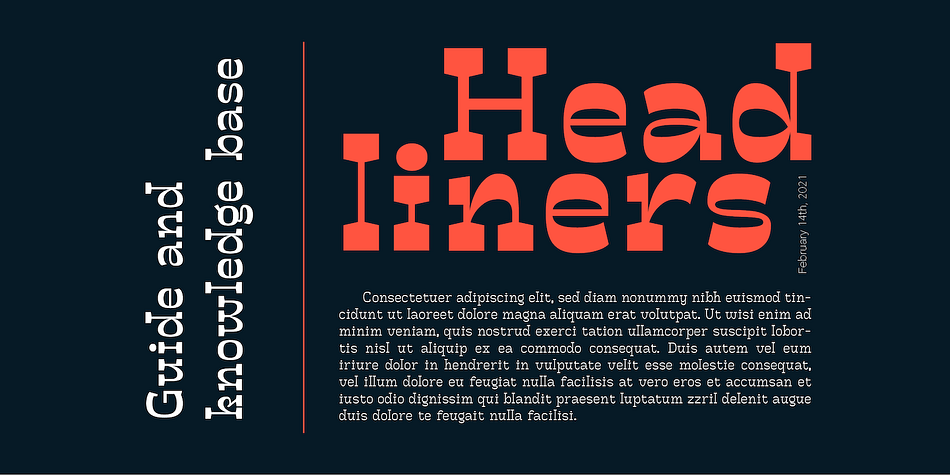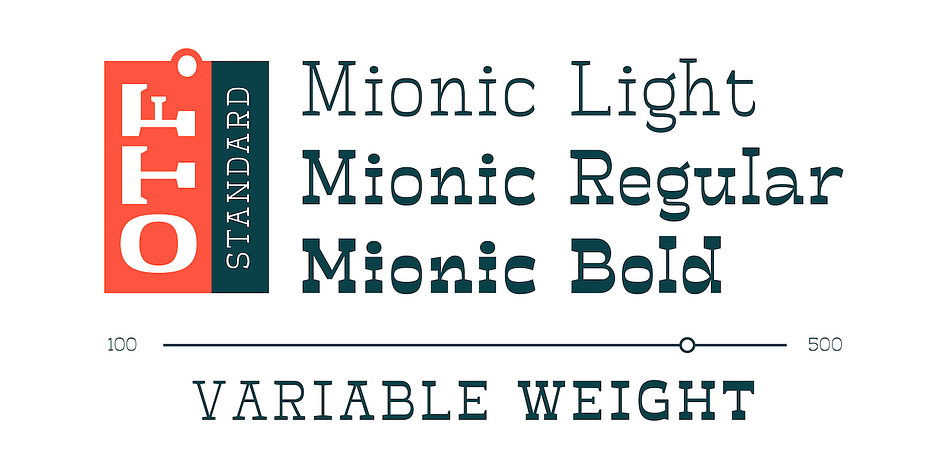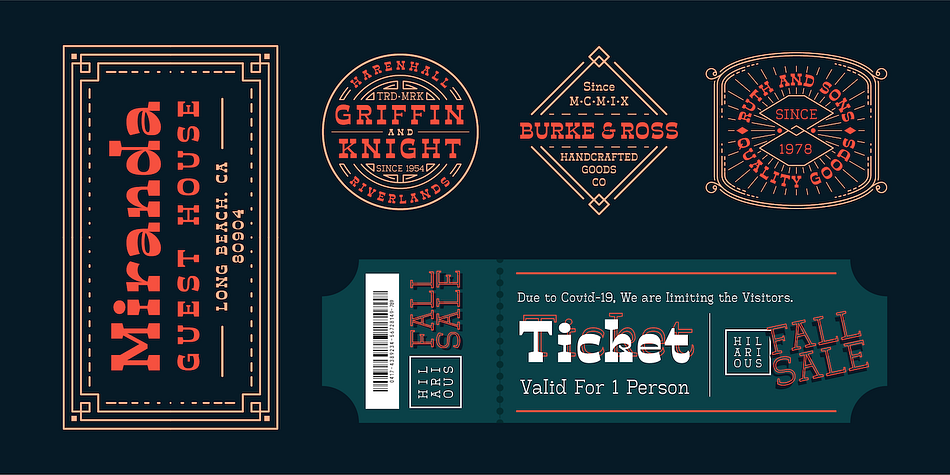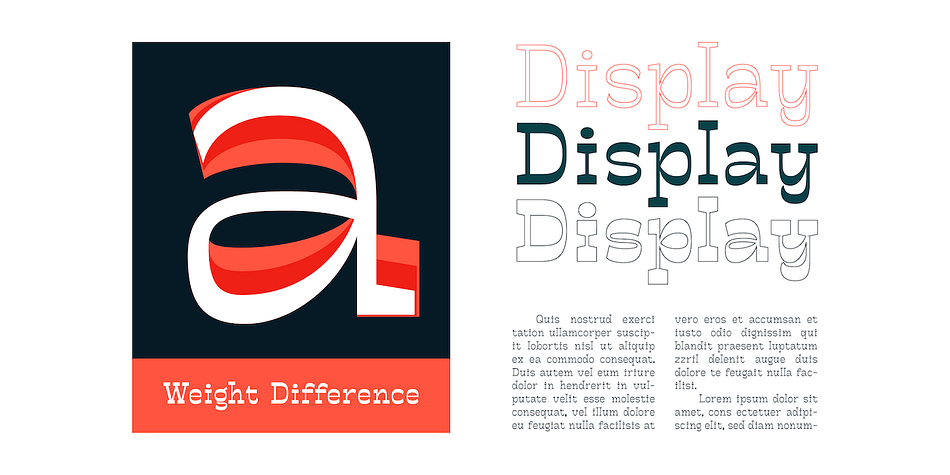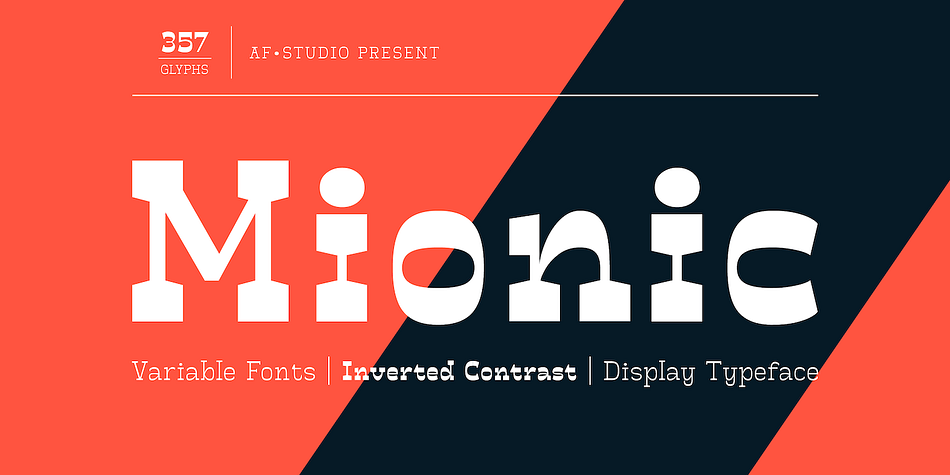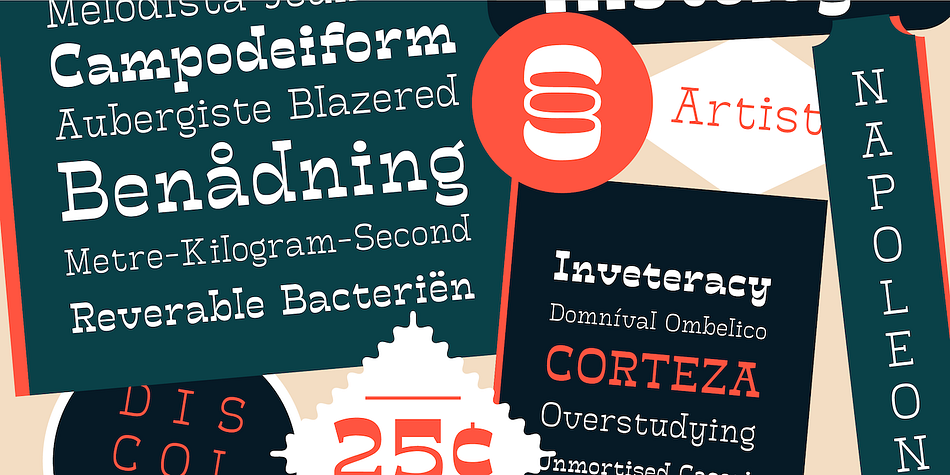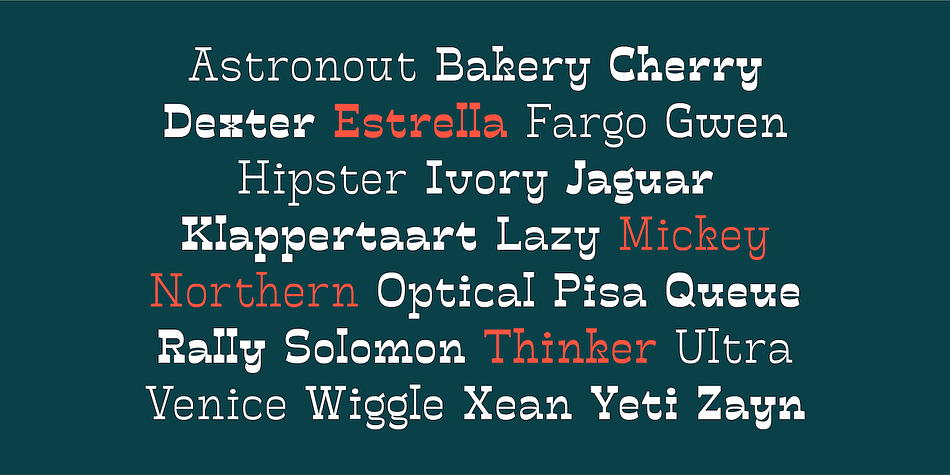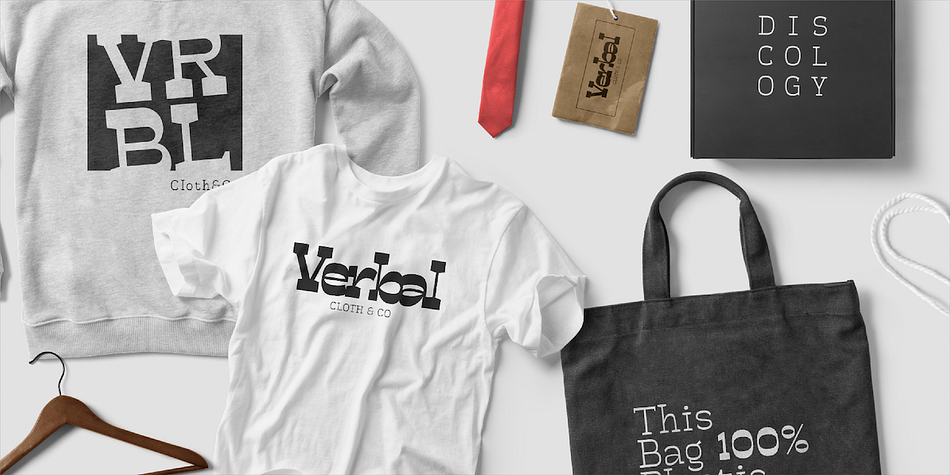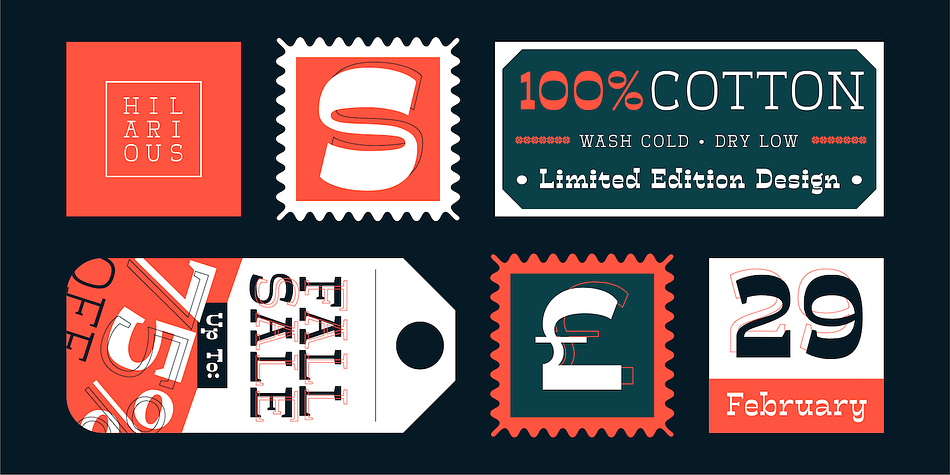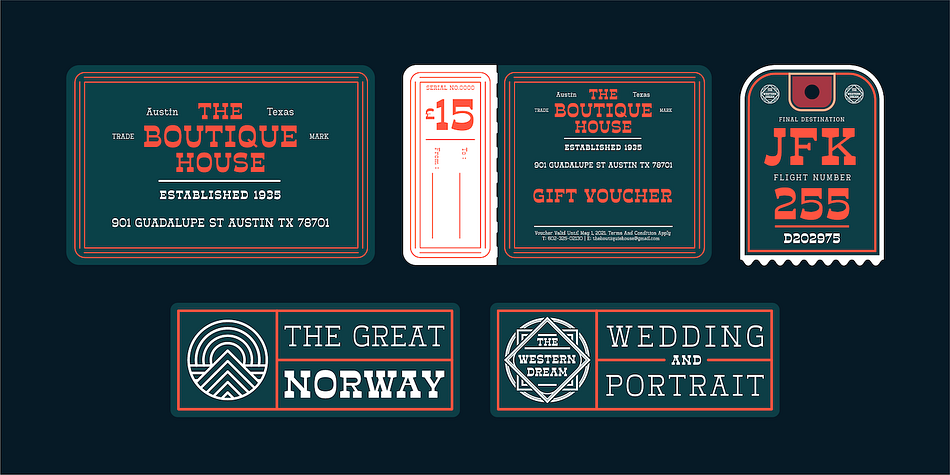
Mionic
Mionic is a display serif, display slab and western font family. This typeface has four styles and was published by AF Studio.
Mionic, An Inverted Contrast Display Typeface. Referring from the Antiques Slab Serif with the modern look of today. Mionic is Best use for a Bigger Typography such as Headliner, Poster, Logo, Or anything that using Bigger Typography and give you the strong Characteristic.
Available with Variable fonts that makes you easy to change the weight of the fonts as you need.
Mionic Also Support Multilanguage Characters : Afrikaans, Albanian, Asu, Basque, Bemba, Bena, Bosnian, Catalan, Chiga, Colognian, Cornish, Croatian, Czech, Danish, Dutch, English, Estonian, Faroese, Filipino, Finnish, French, Friulian, Galician, Ganda, German, Gusii, Hungarian, Icelandic, Inari Sami, Indonesian, Irish, Italian, Jola-Fonyi, Kabuverdianu, Kalenjin, Kinyarwanda, Latvian, Lithuanian, Low German, Lower Sorbian, Luo, Luxembourgish, Luyia, Machame, Makhuwa-Meetto, Makonde, Malagasy, Malay, Manx, Morisyen, North Ndebele, Northern Sami, Norwegian Bokmål, Norwegian Nynorsk, Nyankole, Oromo, Polish, Portuguese, Romansh, Rombo, Rundi, Rwa, Samburu, Sango, Sangu, Scottish Gaelic, Sena, Shambala, Shona, Slovak, Slovenian, Soga, Somali, Spanish, Swahili, Swedish, Swiss German, Taita, Teso, Turkmen, Upper Sorbian, Vunjo, Welsh, Western Frisian, Wolof, Zulu